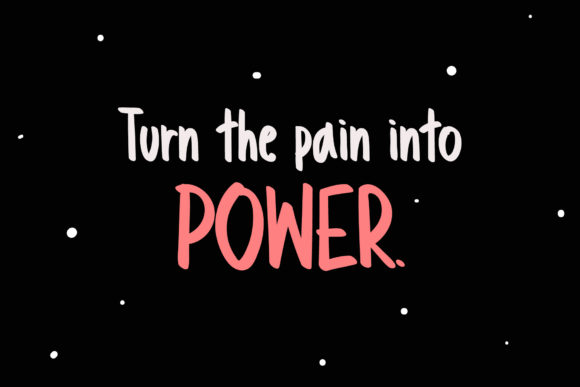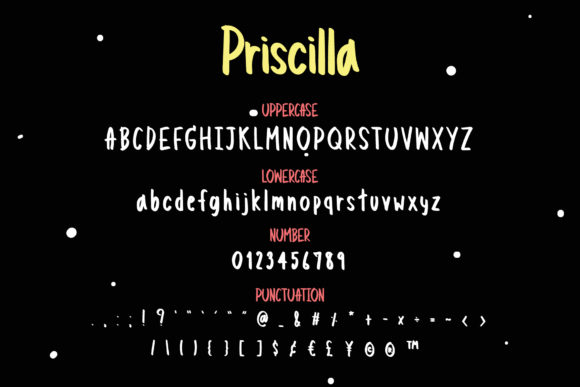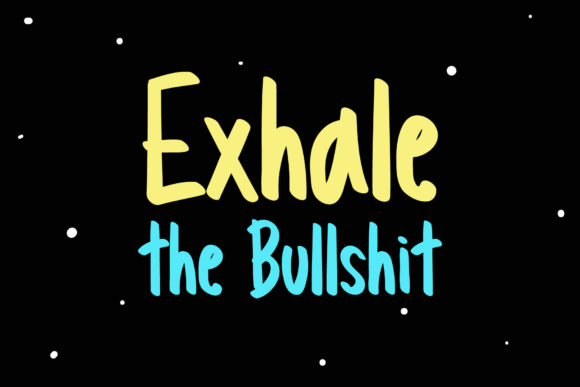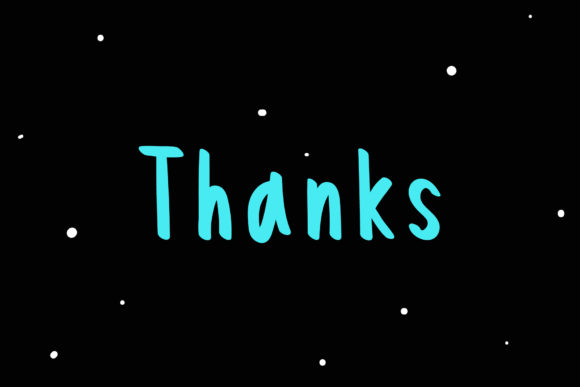
Priscilla Font
About Priscilla Font
Priscilla is a casual and friendly handwritten font. Get inspired by its unique charm and create amazing greeting cards, cute logos and much more!